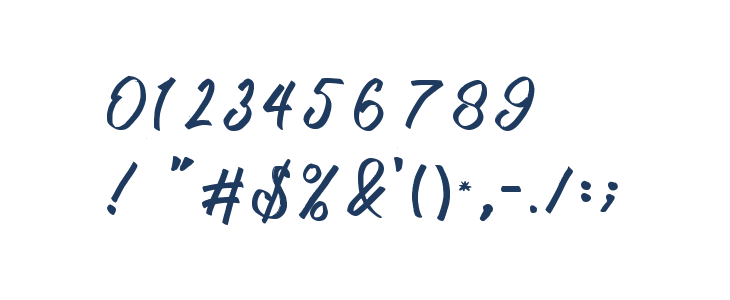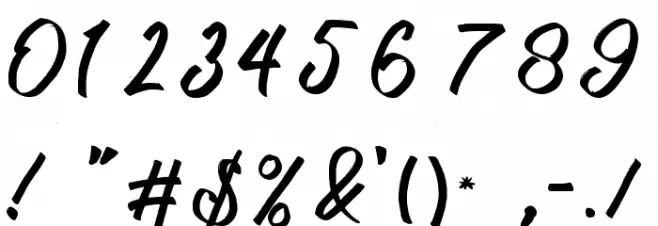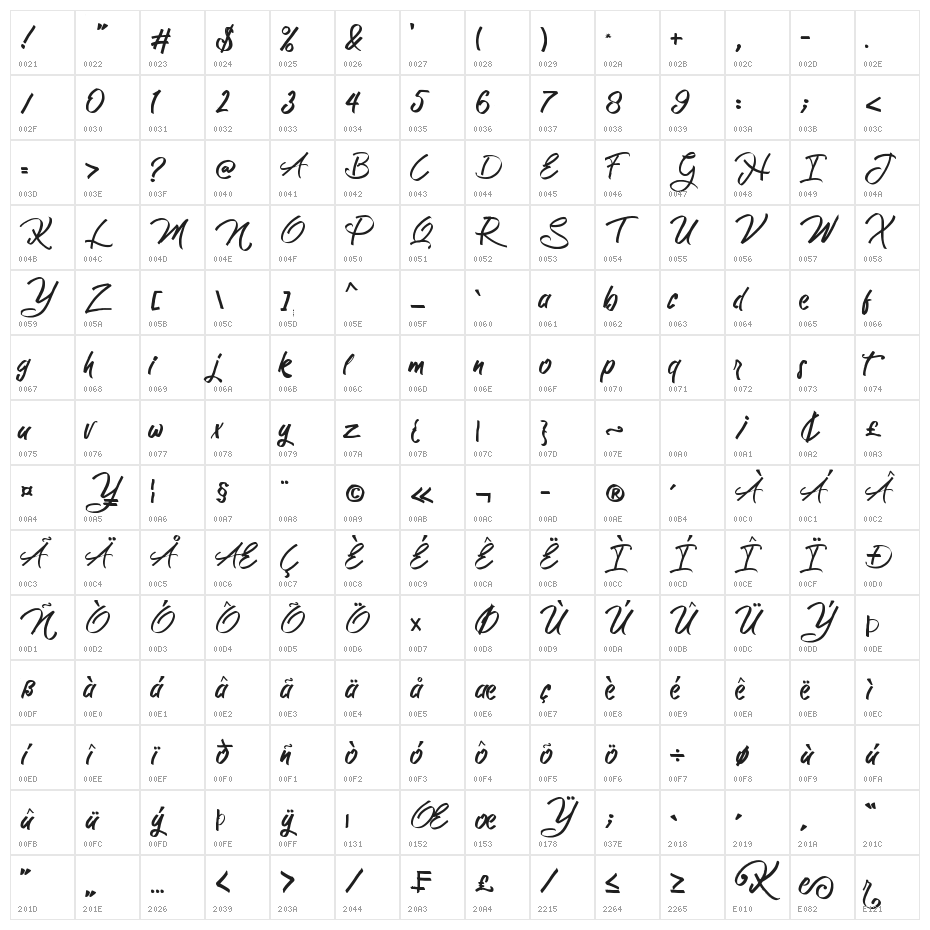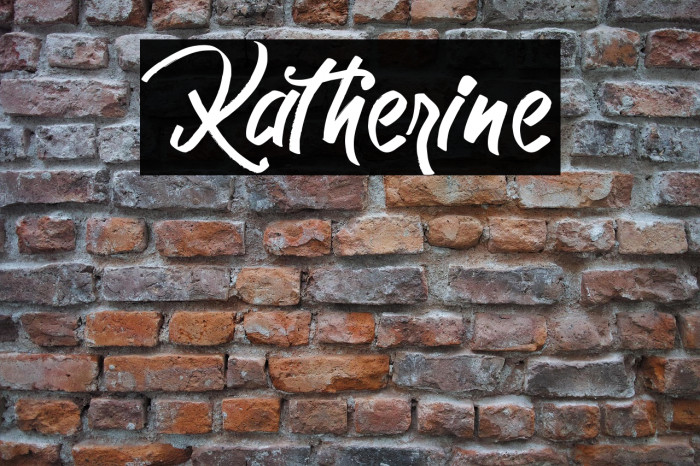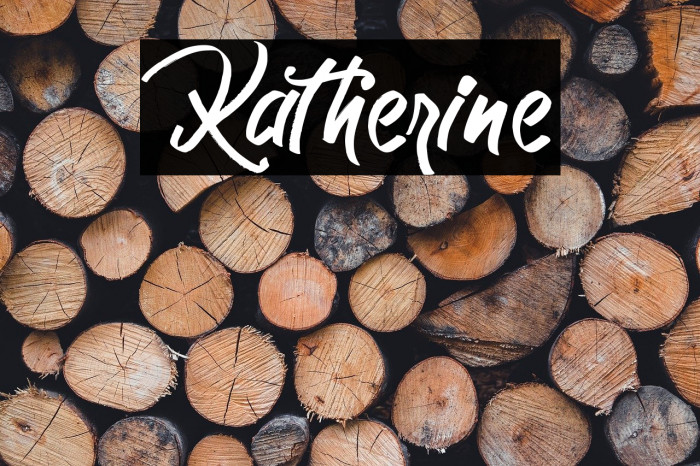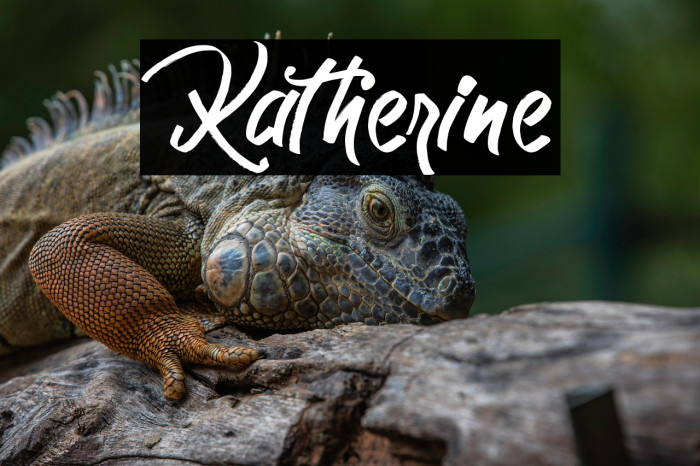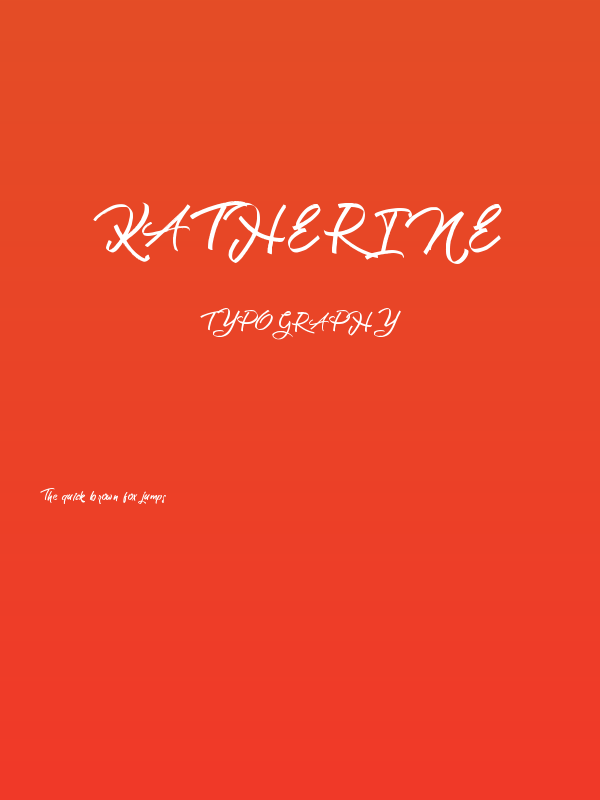
Katherine Font
Katherine Description
This font features an elegant and flowing script style, characterized by its smooth, cursive strokes and artistic flair. The uppercase letters exhibit a graceful, sweeping motion with a slight slant, while the lowercase letters maintain a consistent, fluid connection. The numbers are bold and slightly italicized, complementing the overall script aesthetic. Special characters are designed with the same artistic touch, ensuring a cohesive look across all symbols. The font's style is reminiscent of traditional calligraphy, offering a modern twist with its bold presence.